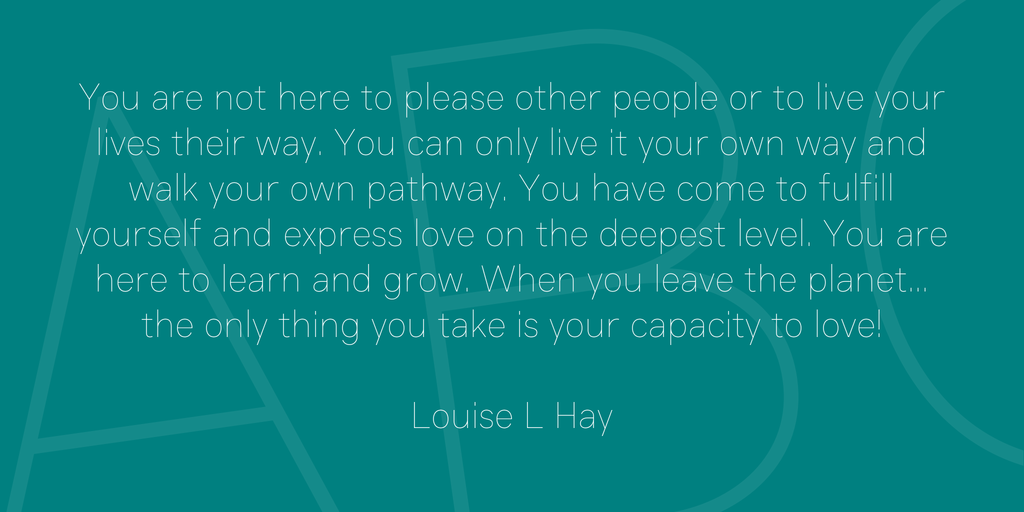
Genome Font
GenomeFont
Made by Hanken Design Co.
Genome is a clean typeface with proportions for increased readability on screen. Support Genome’s furtherdevelopment.